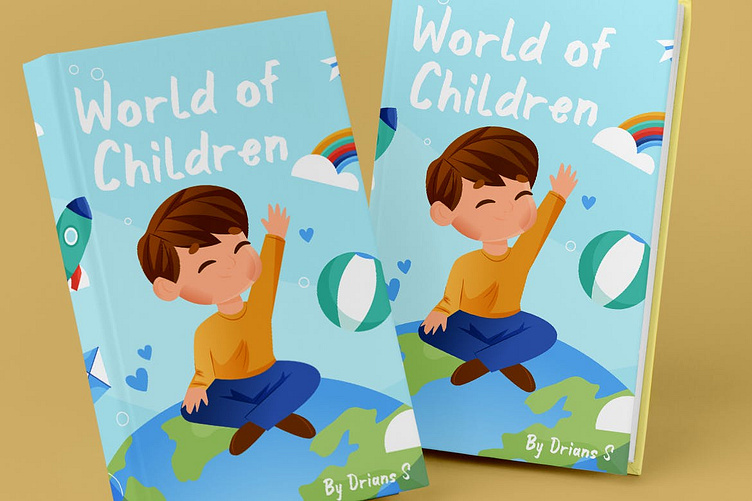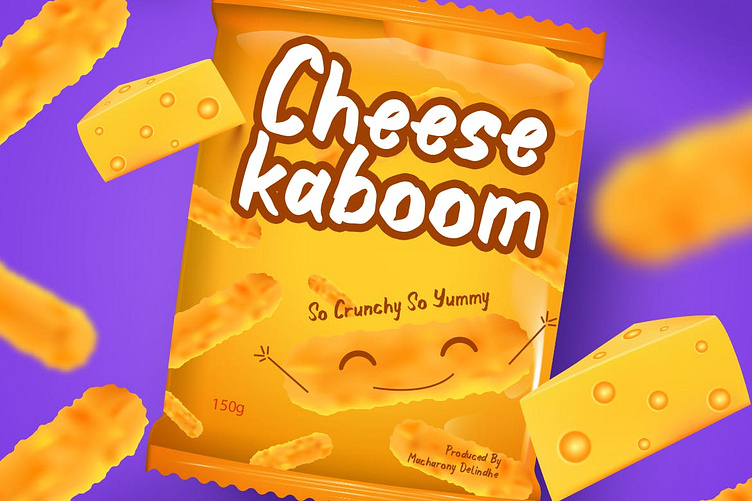
Inkwell – Handwriting Kids Font
Introducing Inkwell – the ultimate handwriting kids font that combines cuteness, fun, and modernity all in one package. Inkwell is the perfect choice for any project that requires a playful and lighthearted touch, such as school materials, children’s books, or Youtube videos.
Crafted with love and care, Inkwell features a unique and charming design that captures the essence of a child’s handwriting, making it perfect for any kid-related projects. Its sans-serif style ensures easy readability, while its movie-inspired design adds a touch of creativity and style to any project.
But what sets Inkwell apart is its versatility. Not only is it perfect for kids’ projects, but it’s also an excellent choice for any modern and stylish project. Whether you’re creating a logo or designing a website, Inkwell will add that touch of personality and flair that sets your work apart.
And with plenty of nature foliage and floral designs, Inkwell’s organic and natural style will make your project stand out in a crowded market. So why settle for a boring font when you can choose Inkwell – the ultimate handwriting kids font that adds that perfect touch of creativity and style to any project